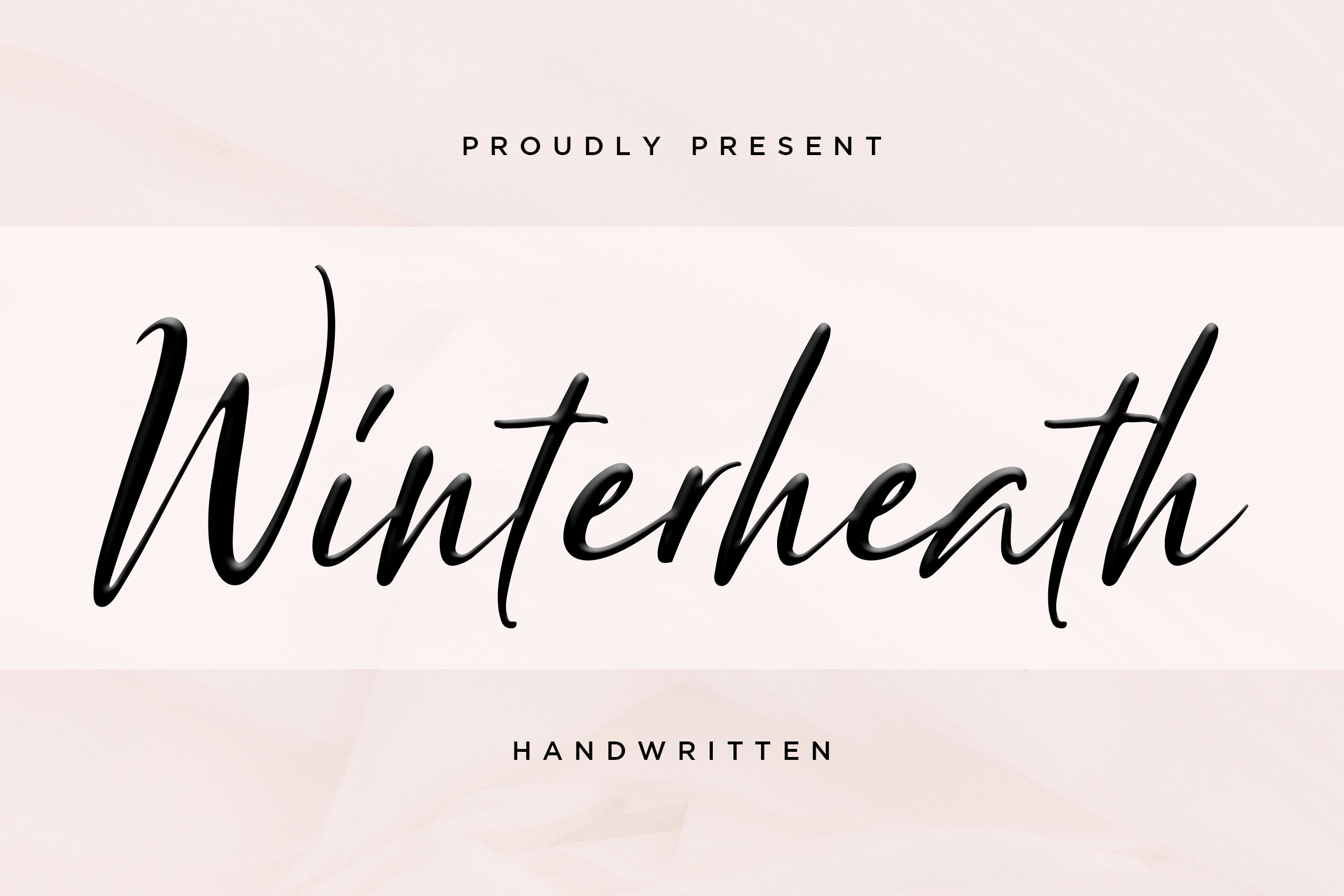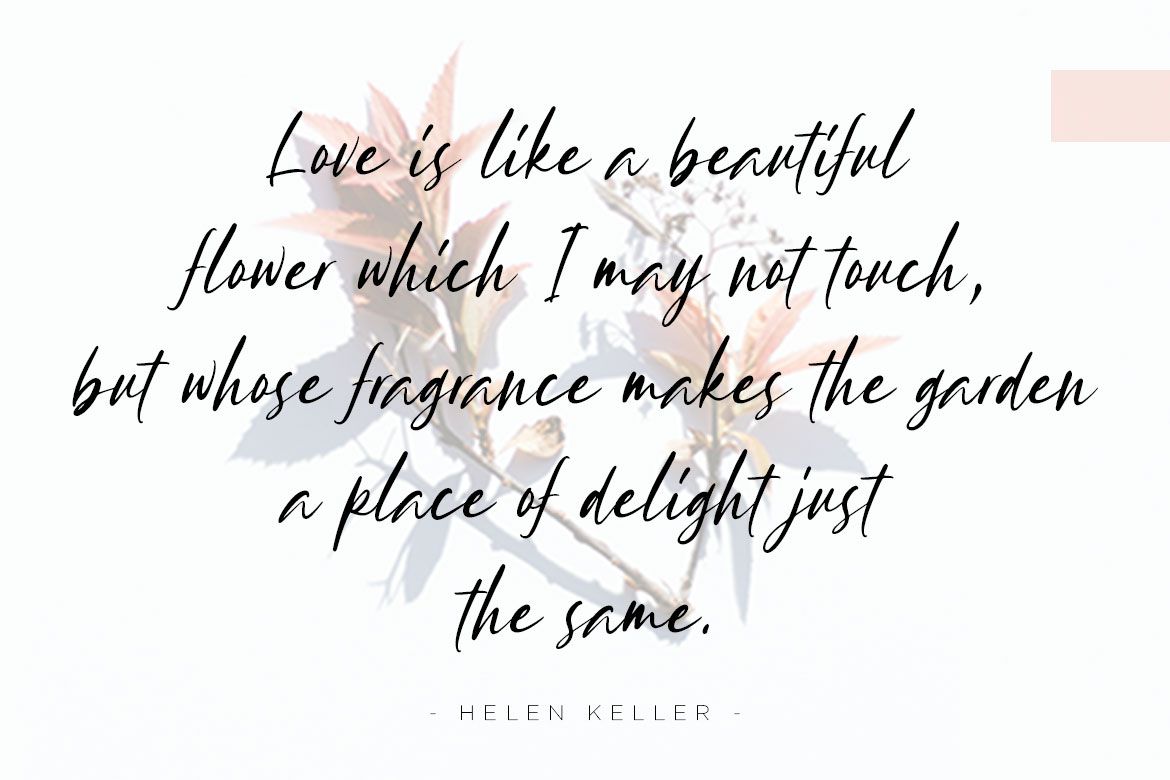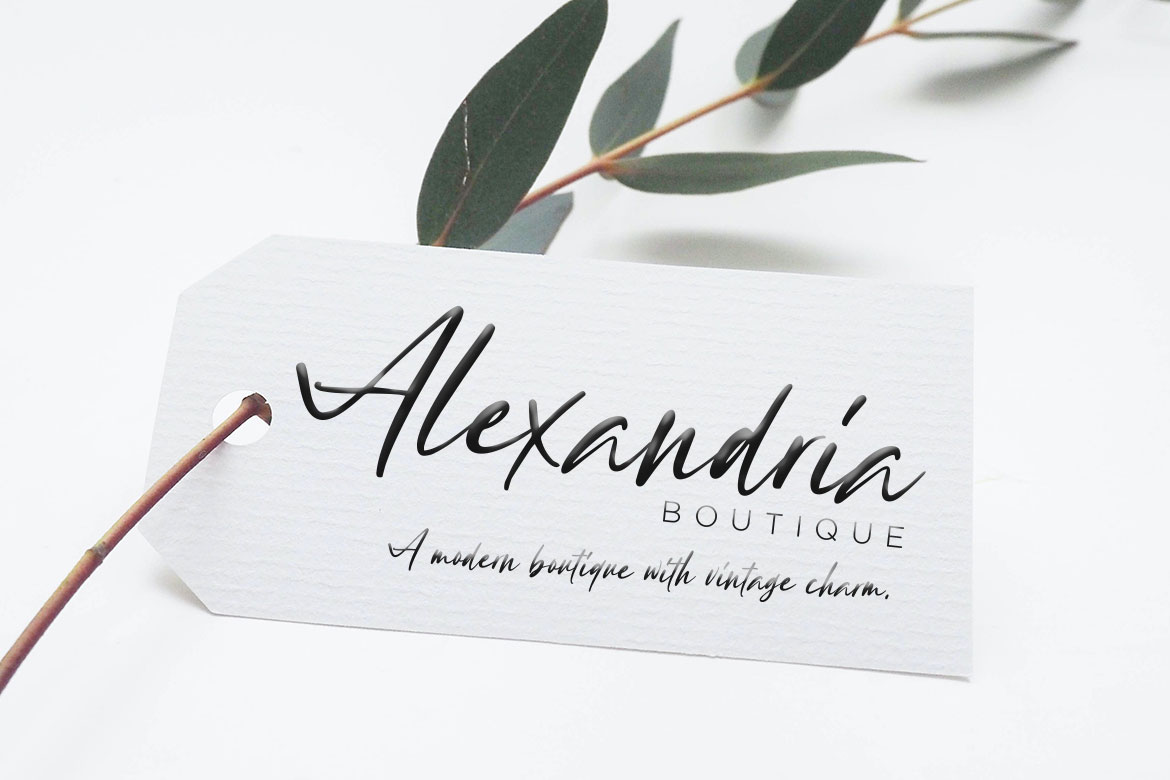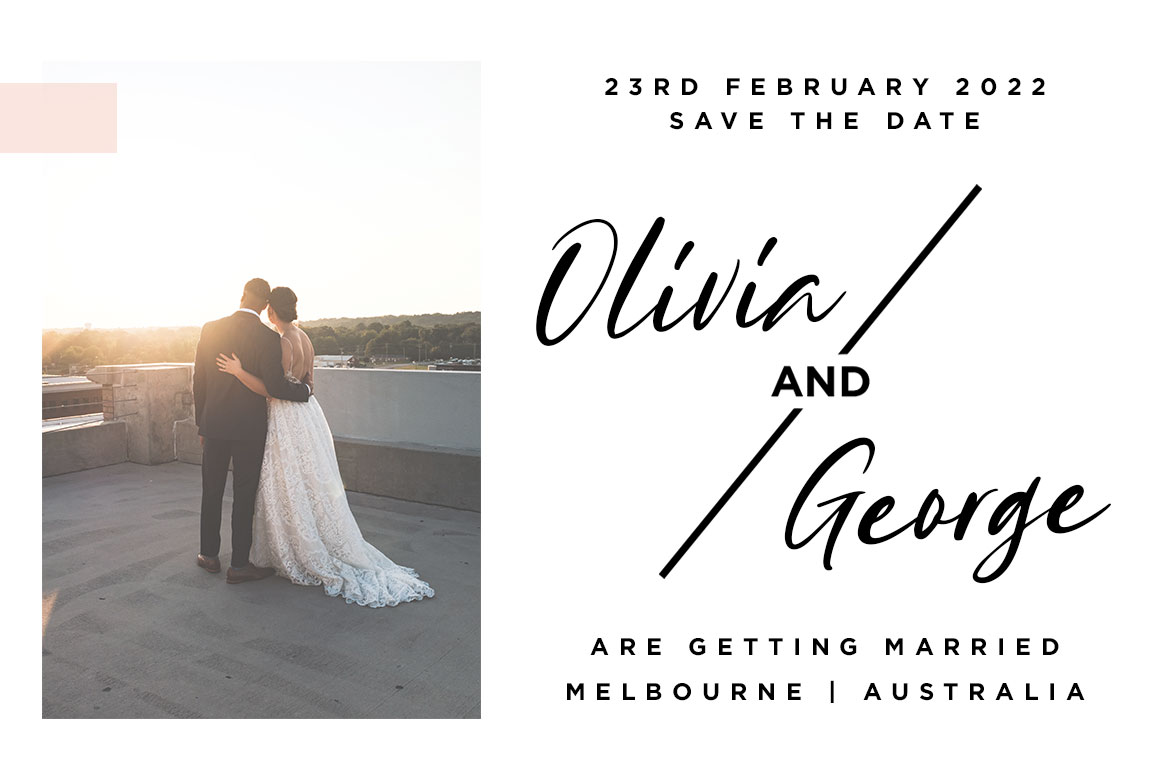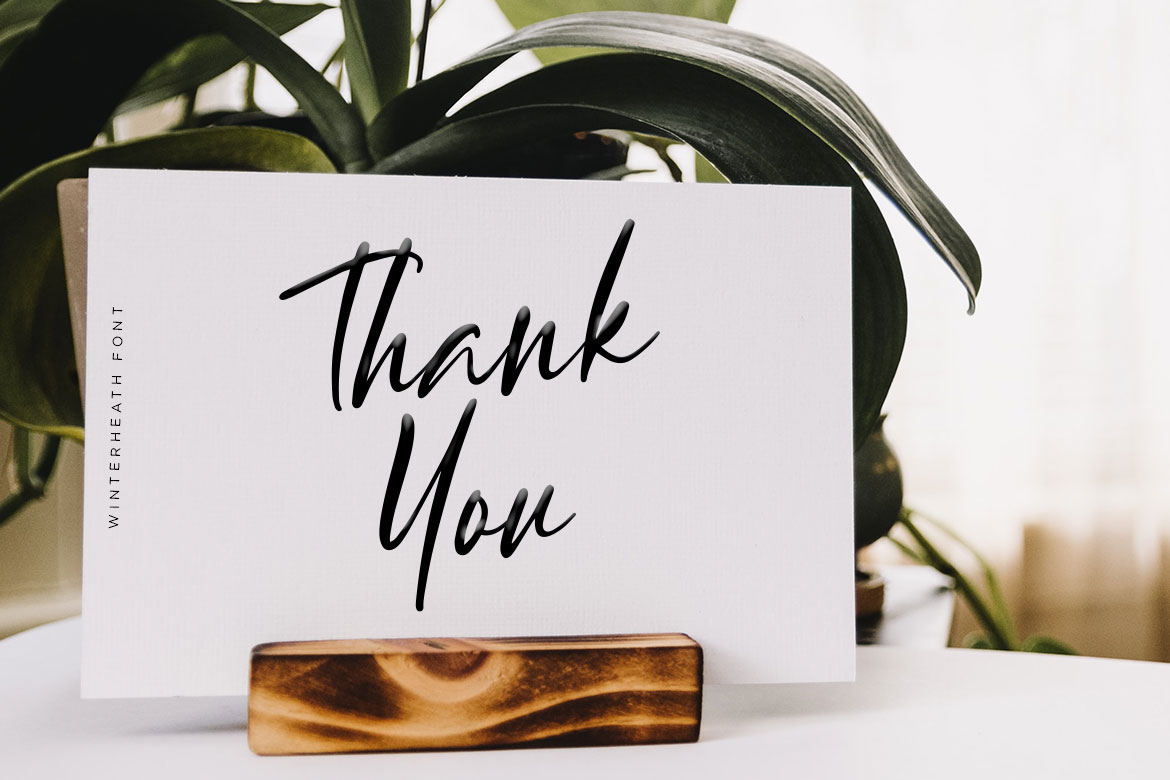
Winterheath is a handwritten script font that brings a perfect balance of elegance and authenticity. With fluid strokes and smooth curves, this font captures the essence of hand-drawn calligraphy while maintaining clarity and modern charm. Whether used in branding, invitations, or quotes, Winterheath delivers a personal touch that feels warm, romantic, and graceful.
Designed to elevate your visual storytelling, Winterheath works beautifully for wedding stationery, boutique logos, and stylish packaging. Its natural handwriting feel makes it ideal for adding a soft, human tone to your designs while keeping things polished and professional.
Winterheath